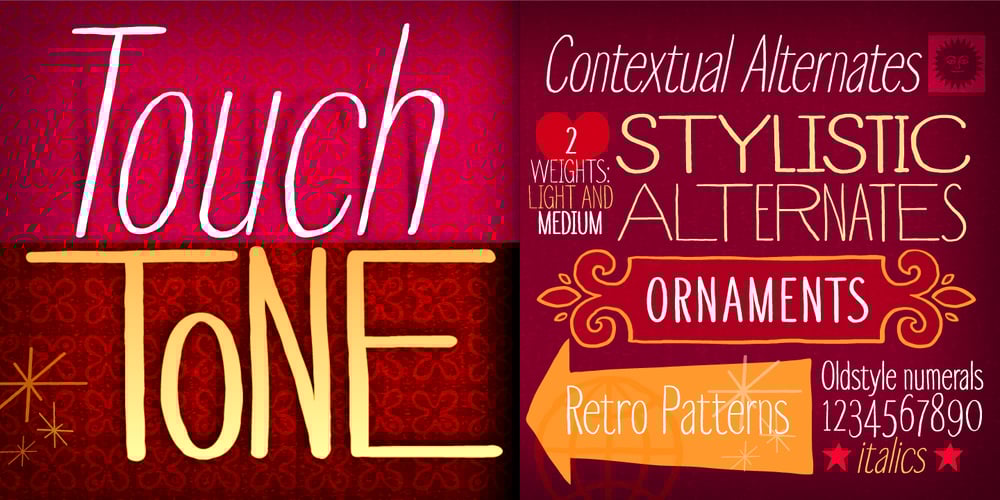
Touch Tone Font Family was designed by Jeff Kahn and published by Jeff Kahn. Touch Tone contains 4 styles and family package options. Touch Tone introduces a condensed lowercase and oblique italics to the uppercase font inspired by the “Dr. Strangelove” movie titles – designed by Pablo Ferro. Touch Tone’s naive hand-drawn strokes rely on a quirky variable width-brush. They are looser, more textured, tactile, more informal, with quirky nervous lines. A family of four fonts: it includes two weights, light and medium, and both with roman and italics. All the fonts include the same patterns and ornaments. However, many of the “medium” font weight ornaments are beefed up to visually match. Touch Tone utilizes OpenType features. It imitates handcrafted lettering by including 2 glyphs for each U&lc letter (4 sets) – all kerned with care. This medley avoids a repetitious appearance so each sentence looks original and hand-drawn. The uppercase includes two widths – extra condensed and extended. Add whimsy and eccentricity by mixing the extra condensed caps with extended caps and the lowercase alphabet. Use the Contextual Alternates, or Stylistic Alternates features panel, or select the alternates in the Glyphs palette. Touch Tone includes oldstyle numerals, a variety of retro patterns, dingbats, speech bubbles, icons, banners, graphic arrows and ornaments. Each font includes 403 glyphs. Suitable for display or text and many European alphabets. Purchase both weights, roman and oblique italics to emphasize words. Touch Tone combines cool graphics and patterns with OpenType. Generously apply Touch Tone for added warmth and a “Rat Pack” groovin’ message.